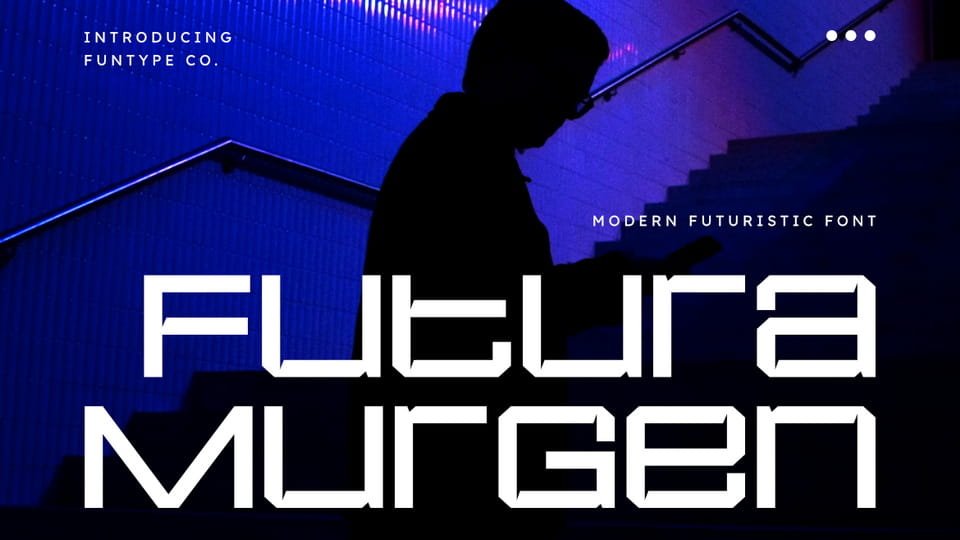
Download Futura Murgen font, a sophisticated and powerful modern futuristic typeface, thoughtfully designed to capture the essence of contemporary impact and sci-fi storytelling.
Designer: Funtype Co.